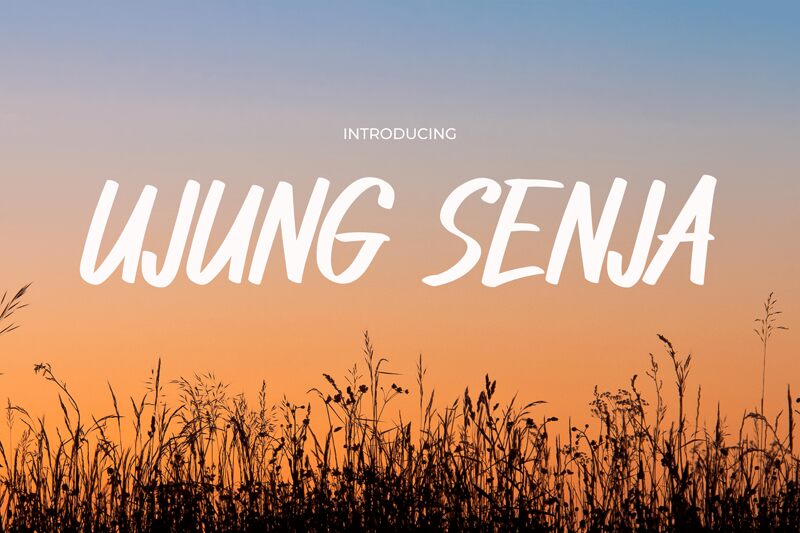
Ujung-Senja
Ujung-Senja font by Pinisiart is a free handwritten font with a natural look, an easy flow of letters, and contemporary touches. It captures a casual elegance that makes it suitable for integrating in various projects and designs. The hand-made letters within its alphabet combine softness, simplicity, beauty all at the same time!